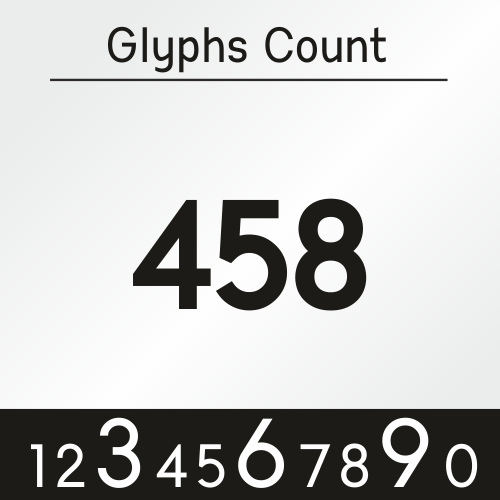
Manti Sans & Manti Slab Typeface Family
Manti is a contemporary typeface family that brings together clarity, balance, and versatility in a clean and structured design language. Created with a strong focus on readability and consistency, the family is ideal for both digital and print environments where precision and visual harmony matter.
Manti Sans delivers a modern sans serif approach with smooth, well-proportioned letterforms and a neutral tone. It includes a wide range of styles; Regular, Light, Bold, Black, and Fixed along with matching italics for each weight. This extended family structure allows designers to build flexible typographic systems, from minimalist interfaces to bold editorial layouts.
Complementing it, Manti Slab introduces a robust slab serif character, combining strong presence with refined geometry. Its structured forms enhance legibility while adding a distinctive voice to headlines and branding. The family includes Light, Regular, Black, and a unique College style, all supported by italic versions to ensure stylistic consistency across different uses.
Together, Manti Sans and Manti Slab form a cohesive superfamily that balances modern simplicity with typographic strength. Whether used independently or in combination, they provide a reliable and elegant solution for branding, editorial design, user interfaces, and corporate communication.
Key Features:
Clean, regular and highly readable design
Extensive weight and italic options
Harmonized Sans and Slab superfamily
Suitable for both text and display use
Consistent structure across all styles
Manti is a dependable choice for designers seeking clarity, order, and contemporary aesthetics in a unified typographic system.
Designed by Mehmet Abacı